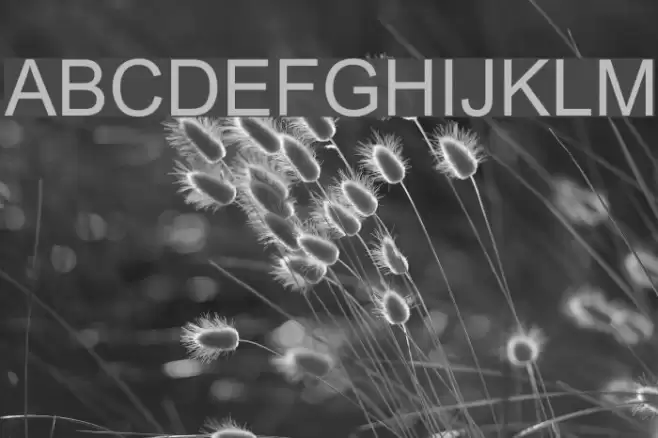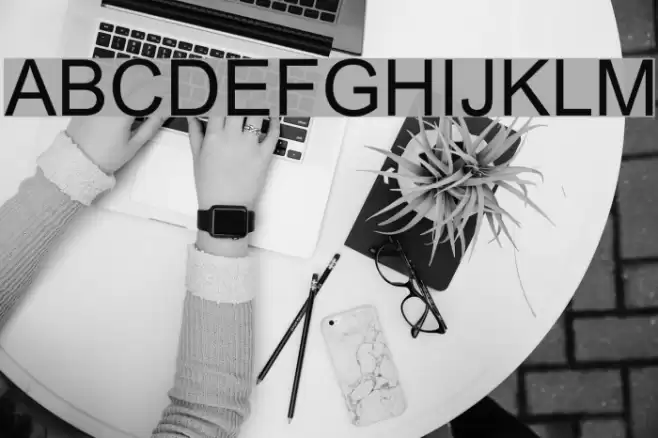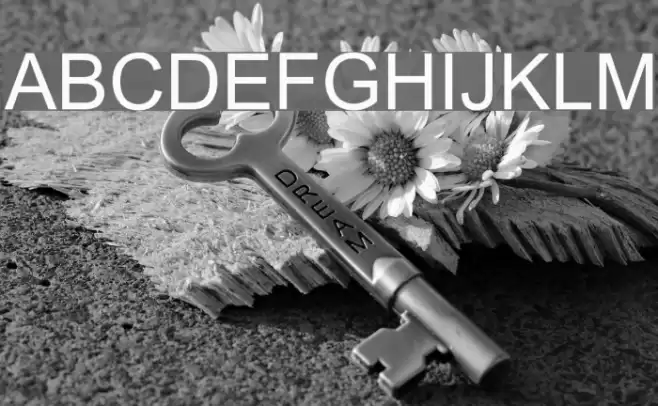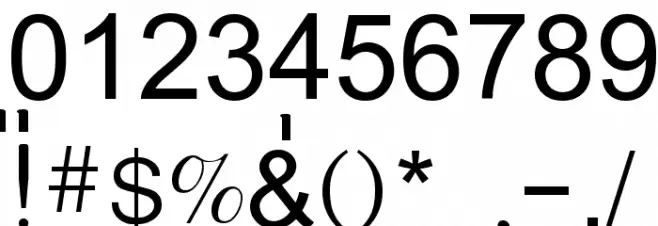
Anlongvill Khek1 Font
Anlongvill Khek1 Description
This font exhibits a clean and modern sans-serif style, characterized by its uniform stroke width and geometric shapes. The uppercase and lowercase letters are well-proportioned, offering a balanced and harmonious appearance. The numerals are clear and easily distinguishable, making them suitable for various applications. Special characters are included, maintaining the same design consistency. The overall design is minimalistic, making it versatile for both digital and print media. Its clarity and simplicity make it ideal for conveying information effectively.
A modern, clean sans-serif font with geometric shapes and uniform strokes from Uncategorized fonts.